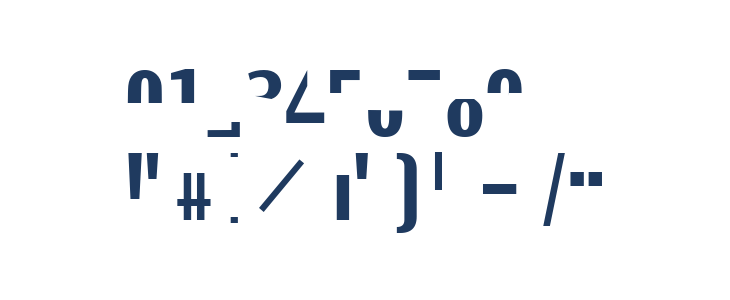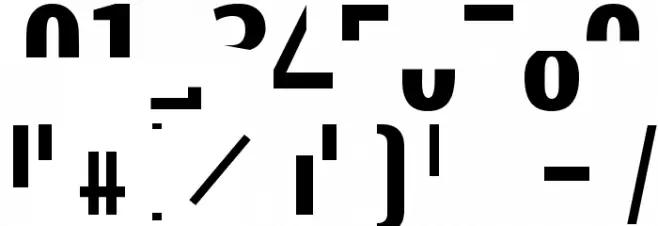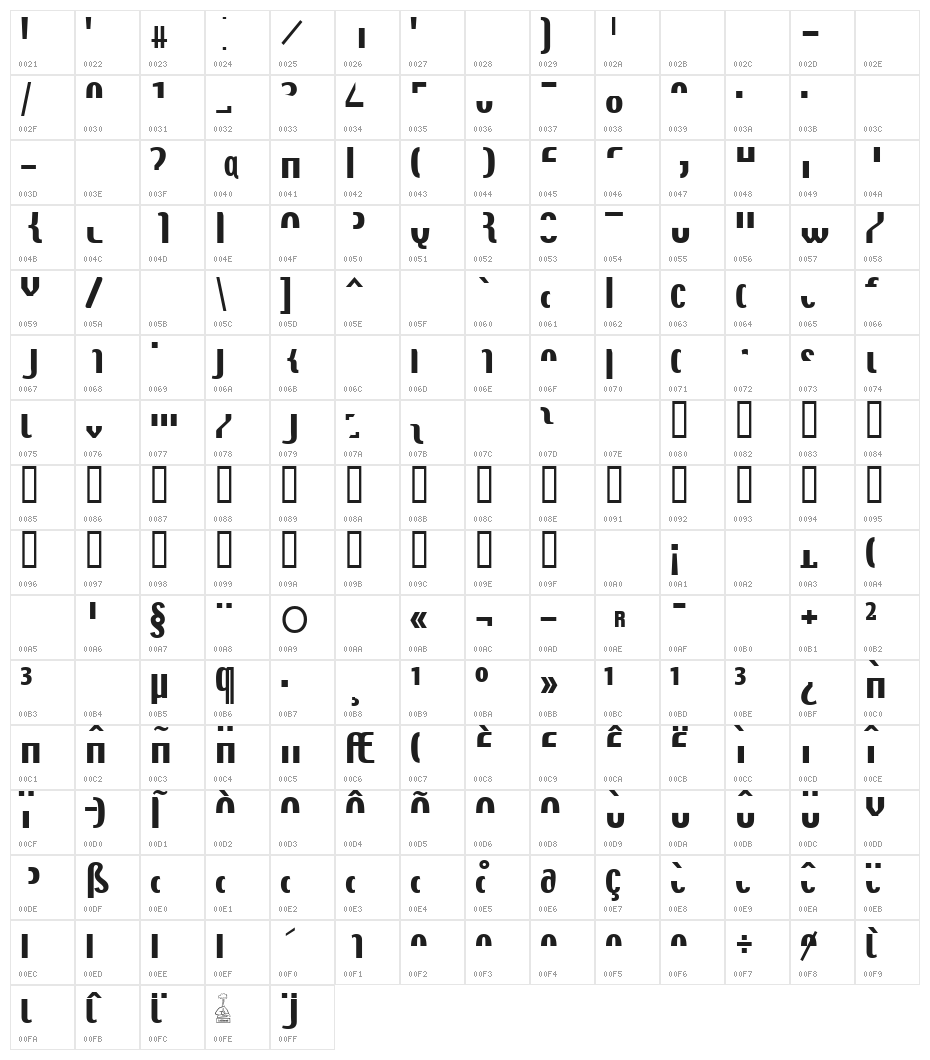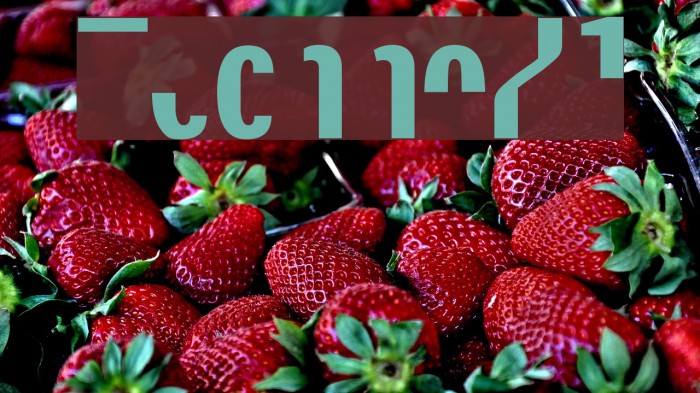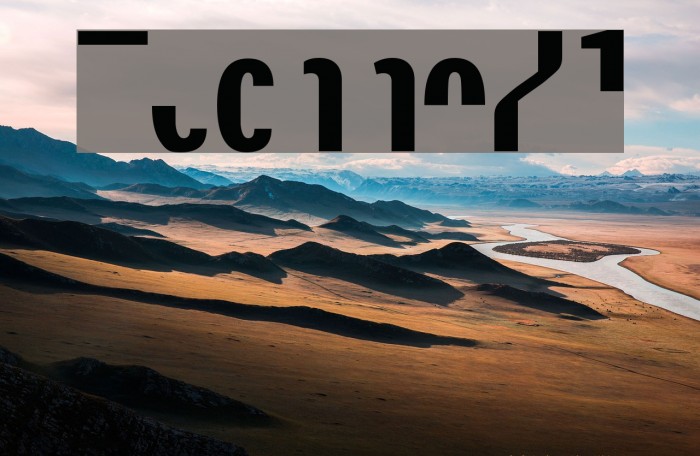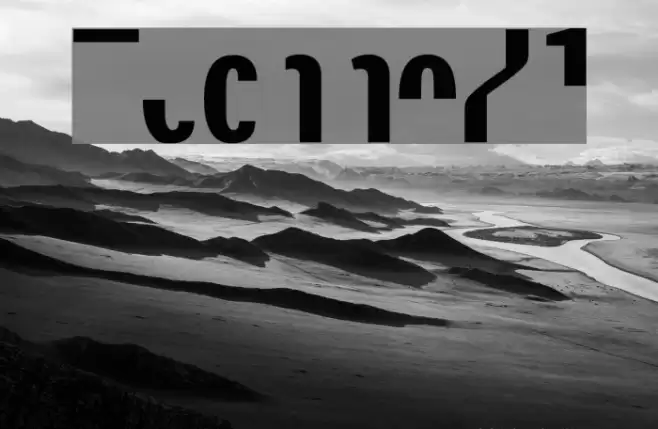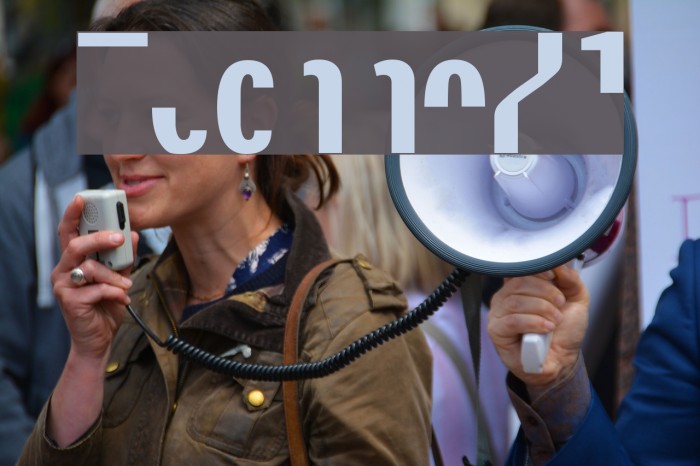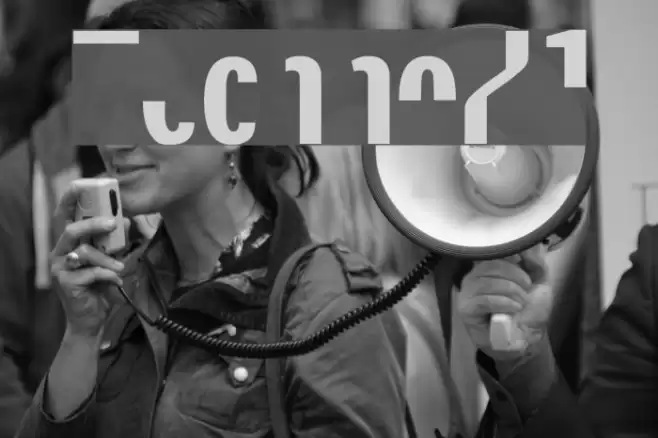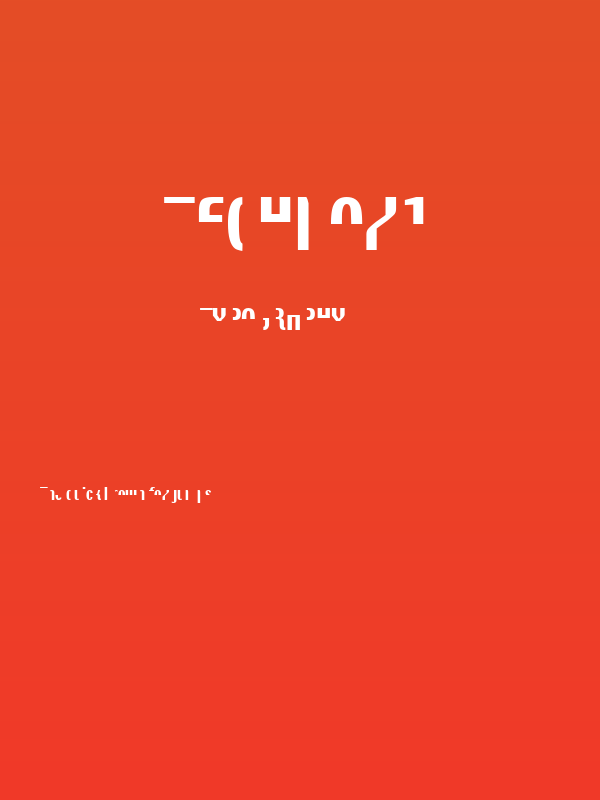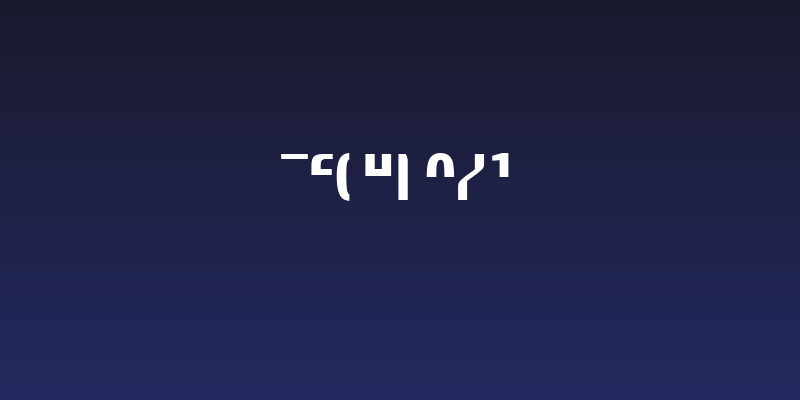
TechnoX1 Font
TechnoX1 Description
This font features a bold and futuristic design with a strong emphasis on geometric shapes and sharp angles. The characters are highly stylized, giving them a unique and modern appearance. The uppercase letters are particularly striking, with a blocky, almost robotic feel. The lowercase letters maintain the same geometric style, ensuring consistency throughout the typeface. Numbers and special characters are designed to match the overall aesthetic, making this font suitable for projects that require a cutting-edge, technological look. The font's boldness and distinctive style make it stand out, ideal for attention-grabbing headlines or logos.
| Proposed Projects | Ideal for technology-themed projects, sci-fi movie posters, video game titles, and modern branding. |